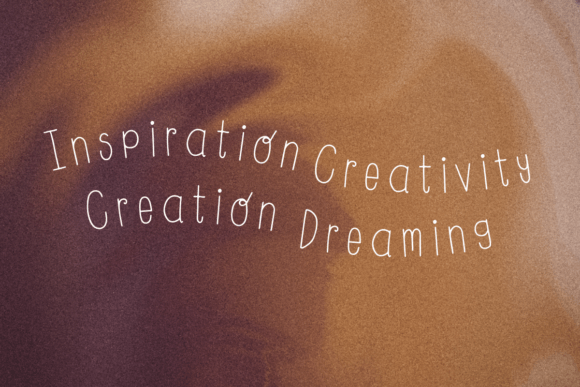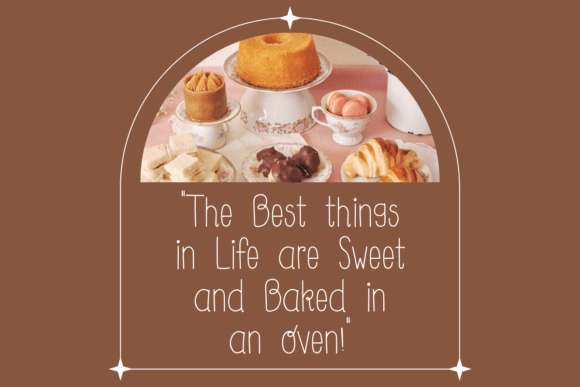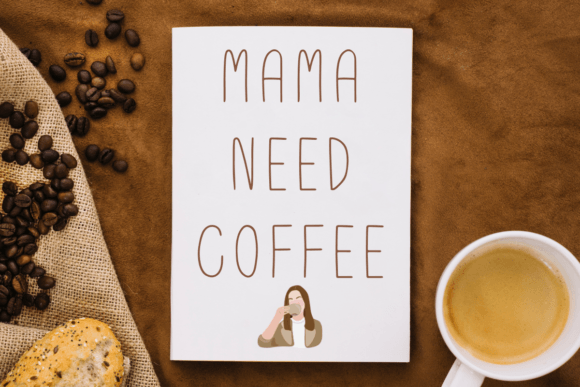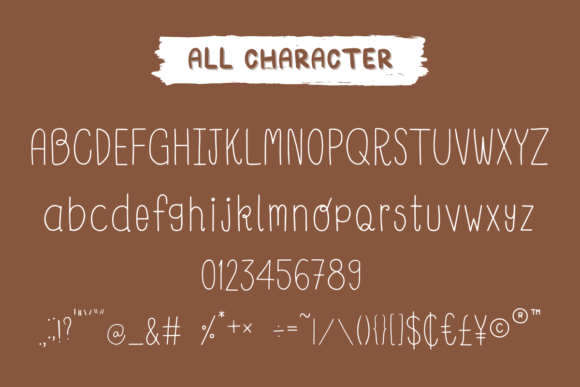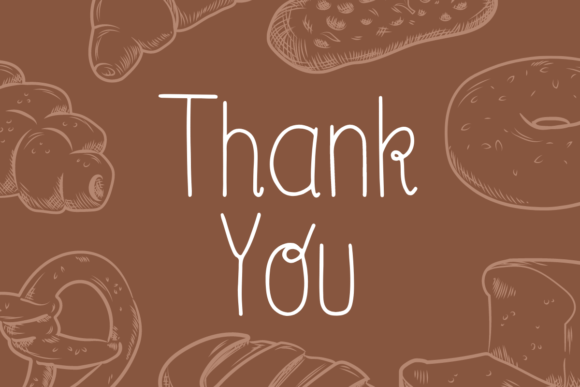
Introducing Barbrown Font: The Perfect Blend of Cute and Welcoming
In the world of typography, fonts play a crucial role in conveying the tone and personality of a design. For designers and crafters looking for a font that exudes approachability and warmth, Barbrown Font is an excellent choice. This delightful font combines the perfect blend of cute and welcoming, making it ideal for designs that require a touch of playfulness and friendliness.
The Characteristics of Barbrown Font
Barbrown Font boasts rounded edges and a friendly appearance, which sets it apart from other fonts. Each letter is carefully crafted to convey a sense of approachability and warmth, making it perfect for designs that aim to connect with their audience on a personal level. The font’s playful and welcoming nature makes it an excellent choice for a wide range of design projects, including invitations, social media posts, and branding materials.
Why Choose Barbrown Font?
There are several reasons why Barbrown Font stands out from the crowd:
- Unique and Playful Design: Barbrown Font features a unique and playful design that is sure to capture the attention of your audience. Its rounded edges and friendly appearance make it perfect for designs that require a touch of whimsy and fun.
- Approachable and Warm: The font’s approachable and warm nature makes it ideal for designs that aim to connect with their audience on a personal level. Whether you’re creating invitations, social media posts, or branding materials, Barbrown Font is sure to convey a sense of friendliness and approachability.
- Versatile: Barbrown Font is a versatile font that can be used for a wide range of design projects. Its playful and welcoming nature makes it perfect for designs that require a touch of personality and whimsy.
Use Cases for Barbrown Font
Barbrown Font is perfect for a wide range of design projects, including:
- Invitations: Whether you’re creating invitations for a birthday party, wedding, or baby shower, Barbrown Font is an excellent choice. Its playful and welcoming nature makes it perfect for conveying the excitement and joy of the occasion.
- Social Media Posts: Barbrown Font is perfect for social media posts that require a touch of personality and whimsy. Whether you’re creating posts for Instagram, Facebook, or Twitter, this font is sure to capture the attention of your audience.
- Branding Materials: Barbrown Font is an excellent choice for branding materials, such as logos, business cards, and brochures. Its approachable and warm nature makes it perfect for conveying a sense of friendliness and approachability.
Tips for Using Barbrown Font
Here are some tips for using Barbrown Font effectively:
- Pair it with Other Fonts: Barbrown Font can be paired with other fonts to create a unique and visually appealing design. Try pairing it with a bold font for headings and a clean font for body text.
- Use it in Large Sizes: Barbrown Font is perfect for large sizes, such as headings and titles. Use it to create a bold and eye-catching design that captures the attention of your audience.
- Experiment with Colors: Barbrown Font can be used with a wide range of colors to create a unique and visually appealing design. Experiment with different colors to find the perfect combination for your design.
| Font Name | Barbrown Font |
| Author | Kanink Type Studio |
Barbrown Font is a delightful font that combines the perfect blend of cute and welcoming. Its rounded edges and friendly appearance make it perfect for designs that require a touch of playfulness and friendliness. Whether you’re creating invitations, social media posts, or branding materials, Barbrown Font is an excellent choice. With its unique and playful design, approachable and warm nature, and versatility, Barbrown Font is sure to become a favorite in your design toolkit.